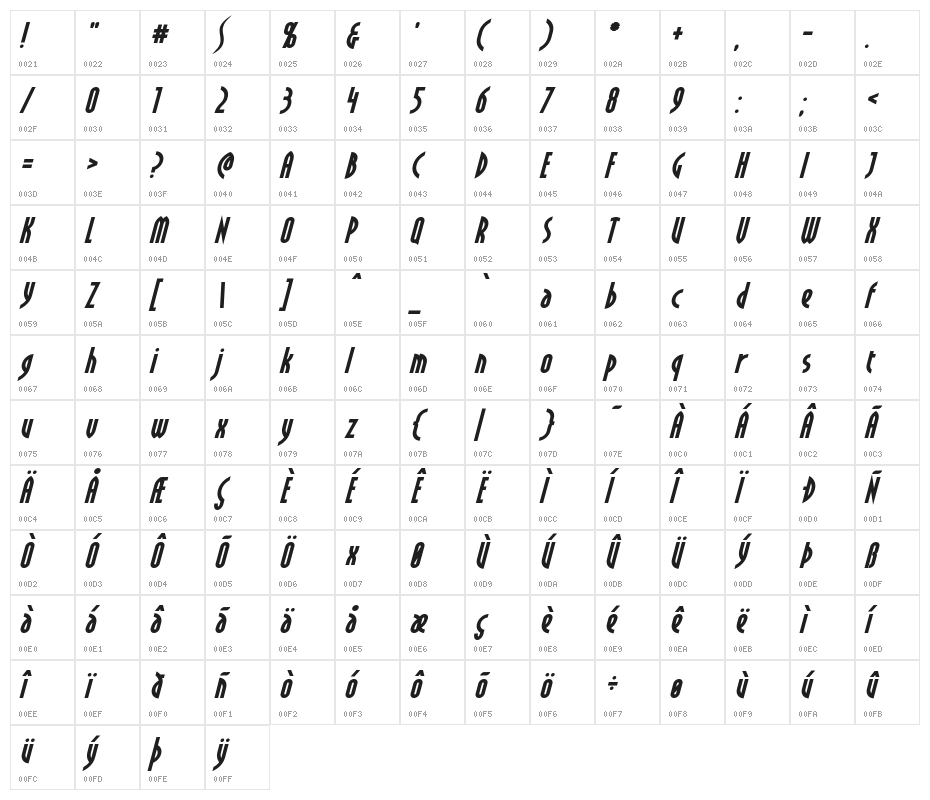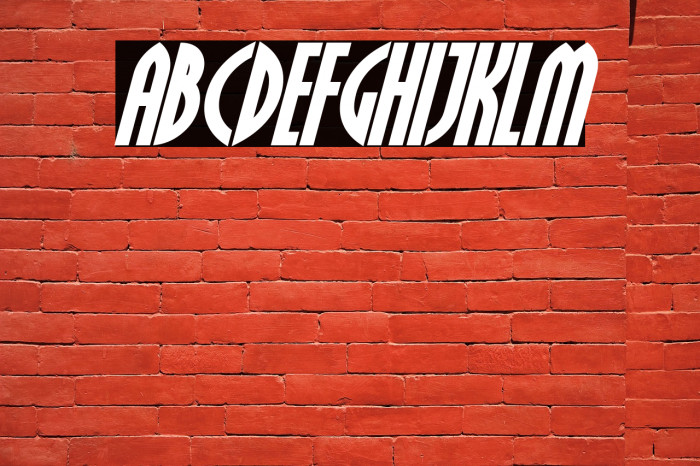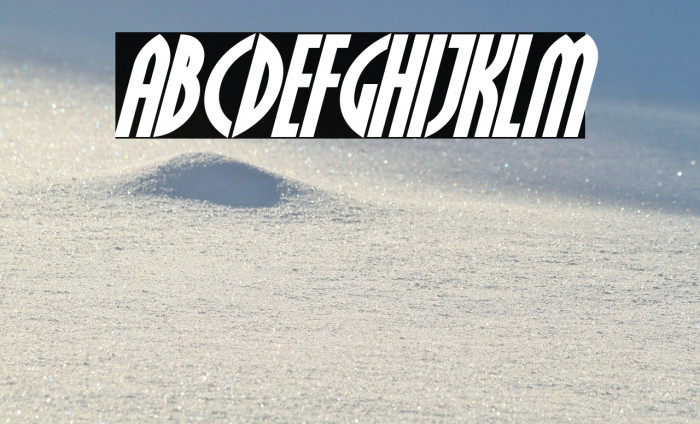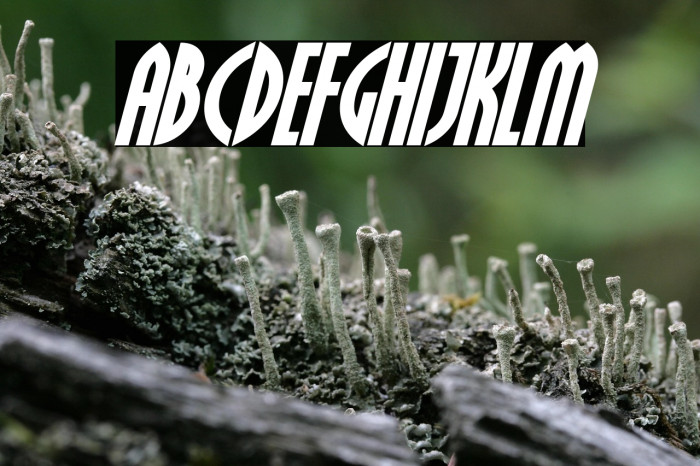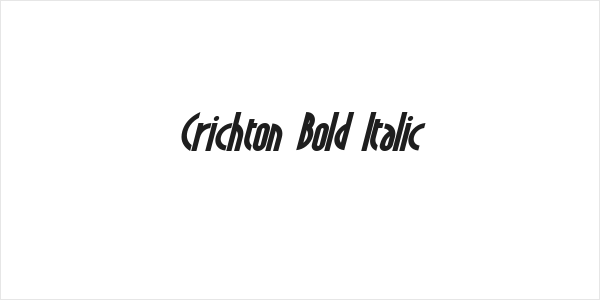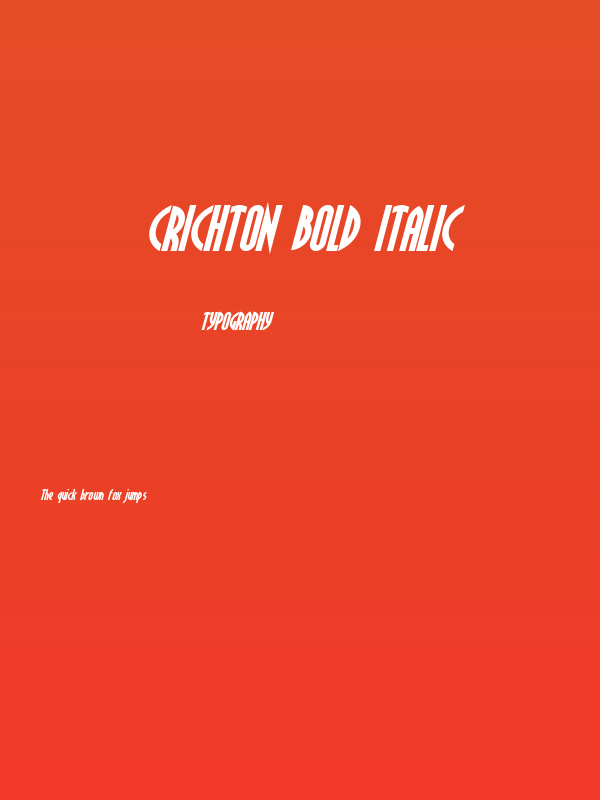
Crichton Bold Italic Font
Crichton Bold Italic Description
This font features a bold and italicized style with a distinct slant, giving it a dynamic and energetic appearance. The characters are sharply angled, with a futuristic and sleek design that emphasizes movement and speed. The uppercase and lowercase letters maintain a consistent style, with the uppercase being slightly more pronounced. The numerals and special characters follow the same bold and italicized pattern, ensuring uniformity across all glyphs. The font's unique design makes it stand out, with its sharp edges and modern aesthetic.
| Proposed Projects | Ideal for projects requiring a modern and energetic look, such as sports branding, tech-related designs, or dynamic posters. |